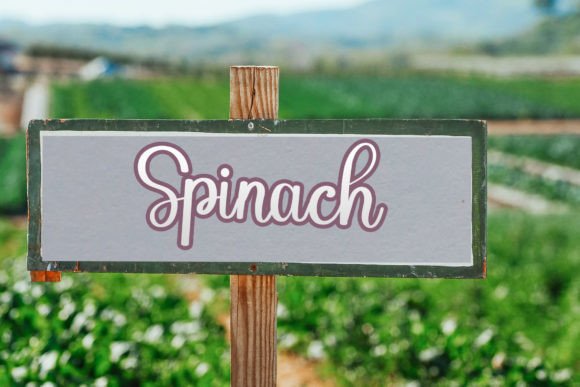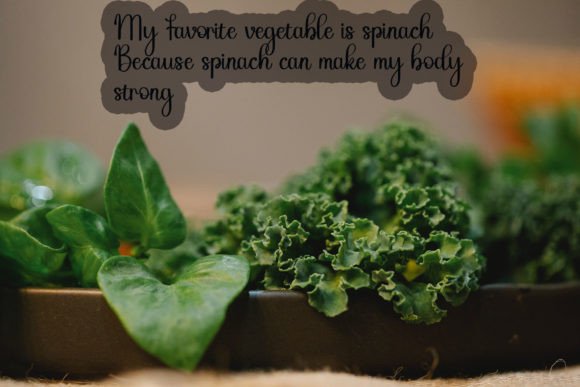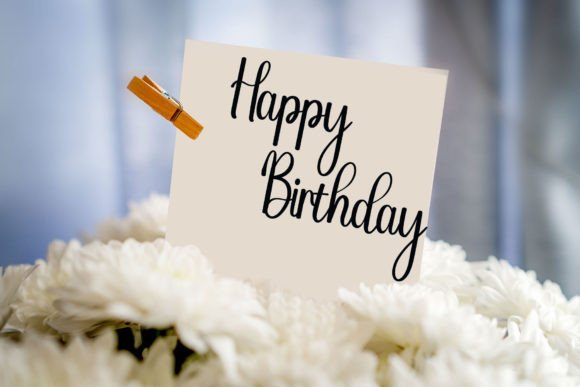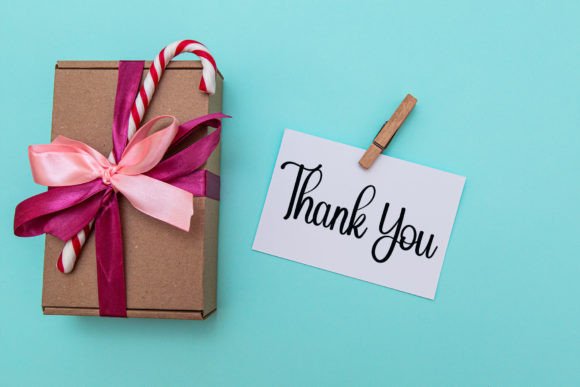
About Pineapple Font
**Pineapple**: *Where Delicate Beauty Meets Timeless Elegance*
Pineapple isn’t just a font; it’s a graceful fusion of delicate beauty and timeless elegance, meticulously crafted to breathe life into your creative ideas. With its elegant flow, this handwritten font boasts well-balanced characters that harmonize seamlessly with a wide spectrum of design concepts.
What sets Pineapple apart is its remarkable ability to strike a balance between delicacy and enduring elegance. The font’s characters possess a captivating handwritten charm that infuses a layer of personal warmth into your projects. Whether you’re working on invitations, branding materials, social media graphics, or any other visual content, Pineapple is the font that can effortlessly elevate your designs.
Pineapple stands as a testament to timeless beauty, radiating a sense of grace that transcends trends and remains eternally appealing. Its versatility makes it a valuable choice for projects that demand both delicacy and timeless elegance.
In branding, Pineapple brings an air of sophistication and authenticity, making it a cherished asset for logos and visual identities. It has the power to convey a brand’s refined character and values, forging a deep connection with its target audience.
Invitations and stationery adorned with Pineapple acquire a unique level of elegance, setting the stage for refined events and heartfelt correspondence. Social media posts featuring Pineapple exude style and grace, captivating your audience and bringing your content to life.
One of Pineapple’s most remarkable qualities is its adaptability. It seamlessly transitions from a formal and polished tone to a more casual and friendly one, making it suitable for a wide range of creative projects. Its ability to complement different styles and themes ensures that it remains a cherished choice for designers and creators across diverse industries.
In summary, Pineapple transcends being merely a font; it’s a design asset that effortlessly combines delicate beauty with timeless elegance. Its unique blend of graceful characters and classic charm positions it as an indispensable tool for anyone seeking to infuse sophistication into their visual communication. Embrace the delicate beauty of Pineapple, and watch your creative projects come alive with grace and timeless allure.